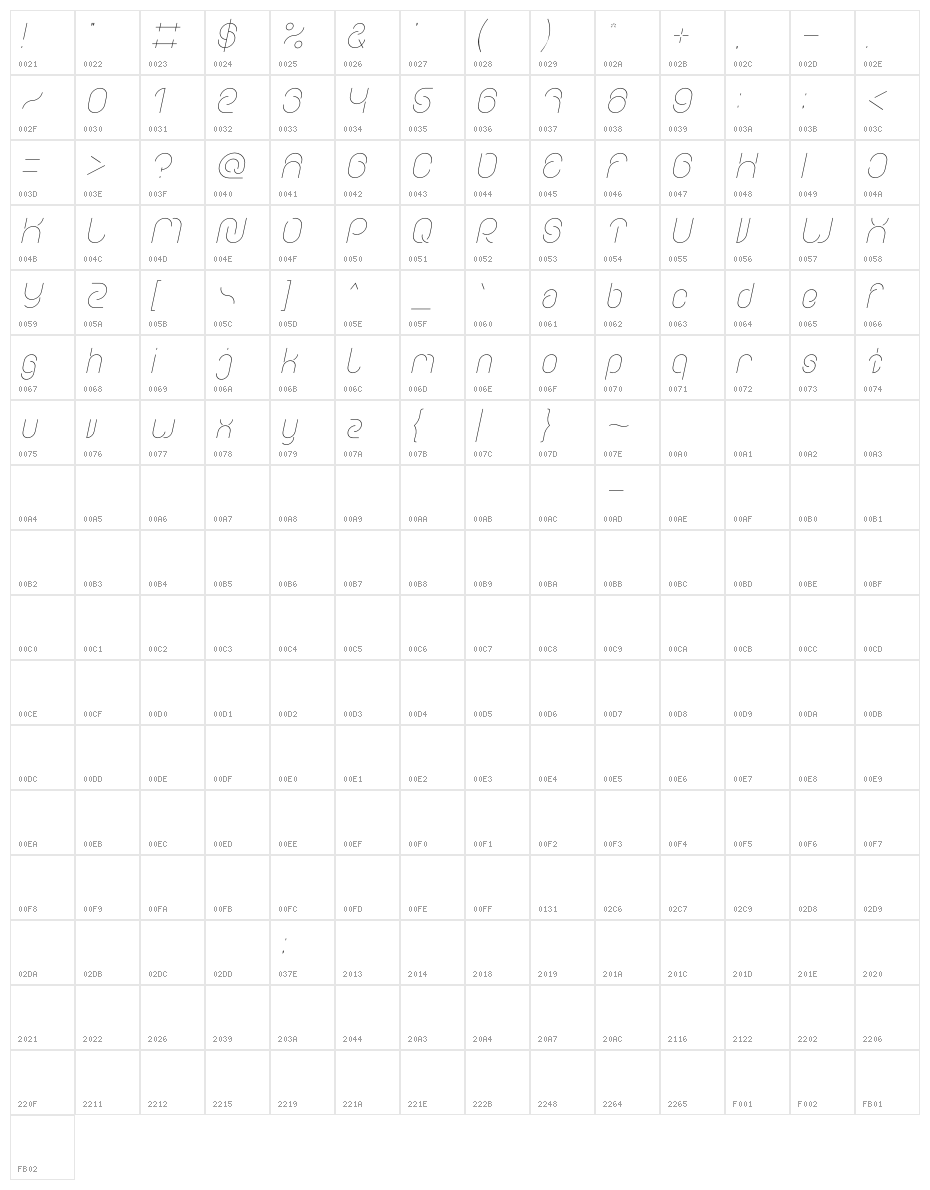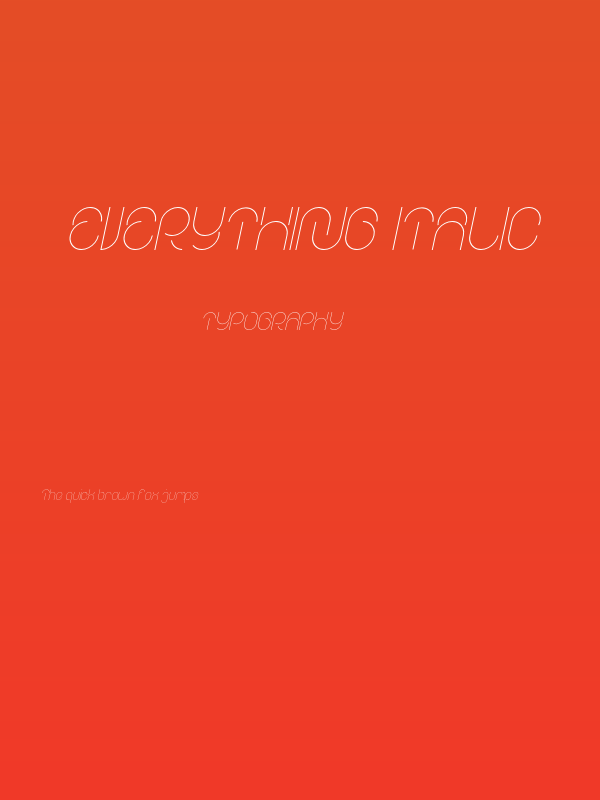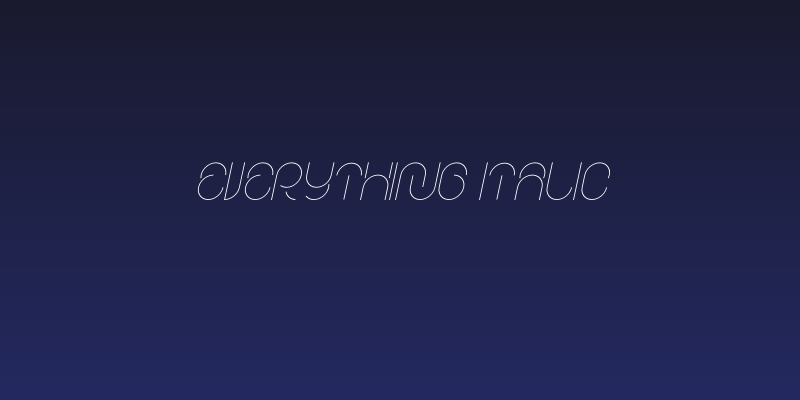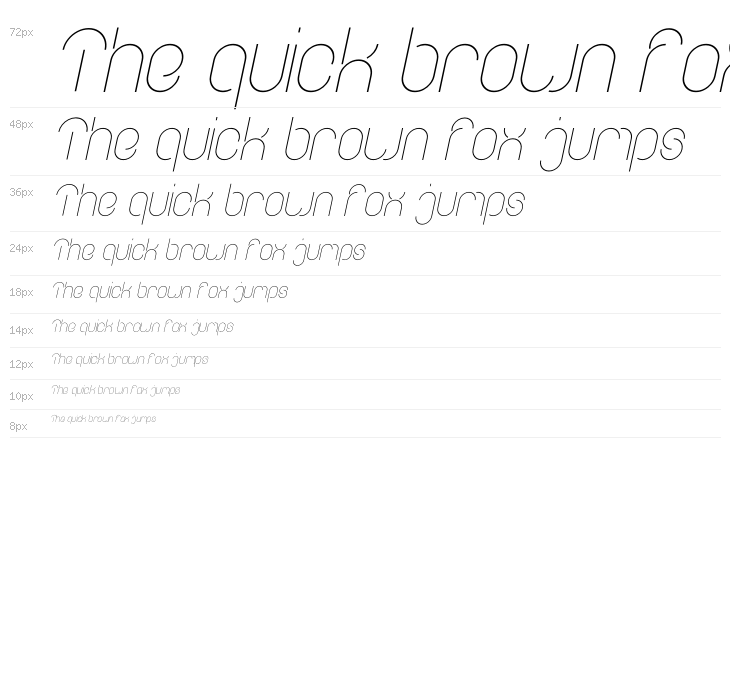
EVERYTHING Italic Font
EVERYTHING Italic Description
This font features a sleek, modern design with a distinctive italic slant, giving it a sense of motion and elegance. The characters are crafted with a single continuous line, creating a minimalist and futuristic appearance. The uppercase and lowercase letters maintain a consistent style, with rounded edges and smooth curves. The numerals and special characters are designed to match the overall aesthetic, ensuring a cohesive look across all text. This font's unique style makes it stand out, while its readability remains intact.
| Use Case | Logos, Headlines, Branding |
| Proposed Projects | Ideal for modern branding, tech-related projects, futuristic designs, and creative advertising. |